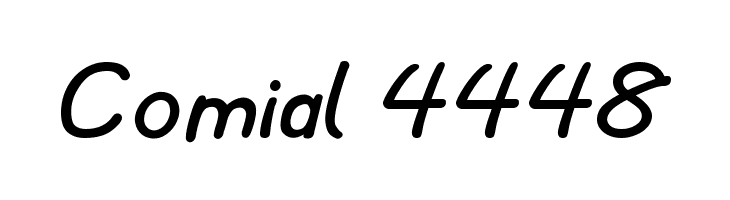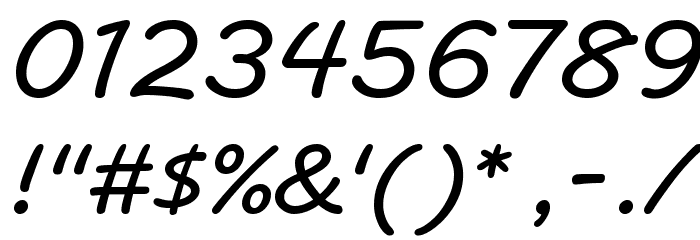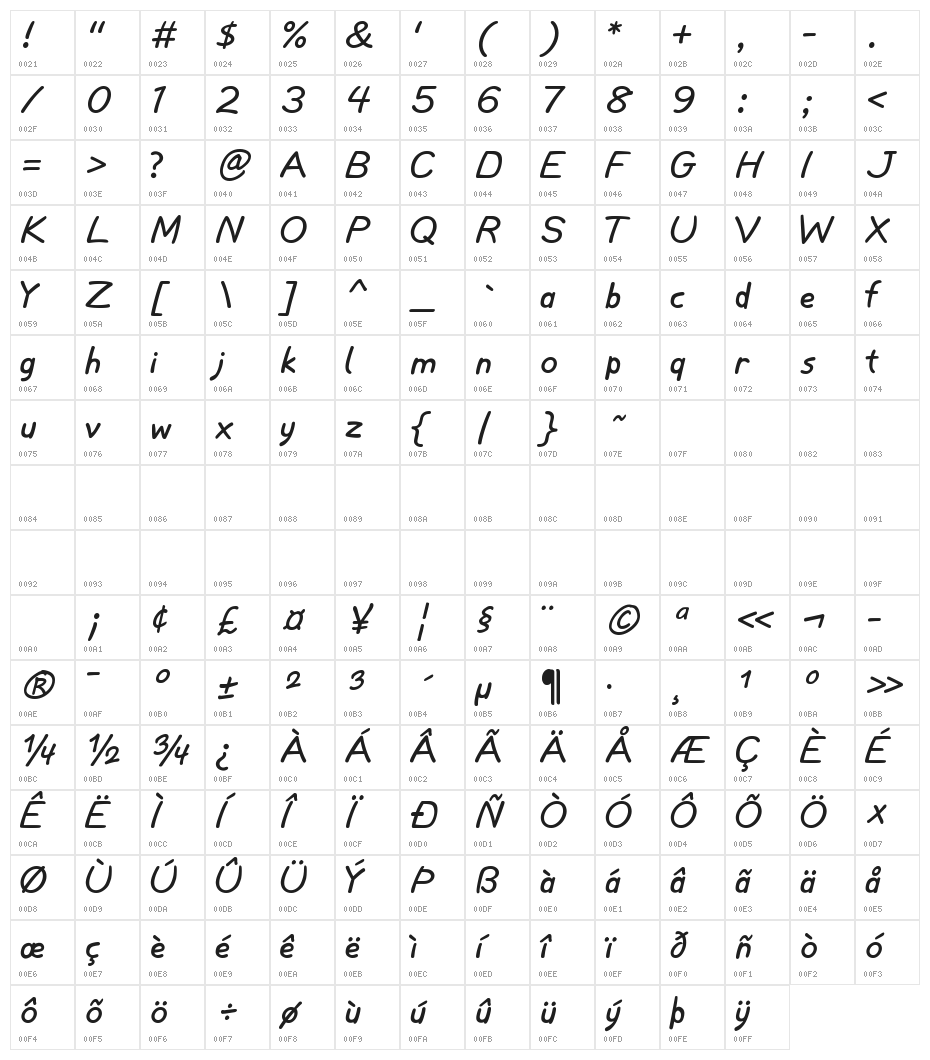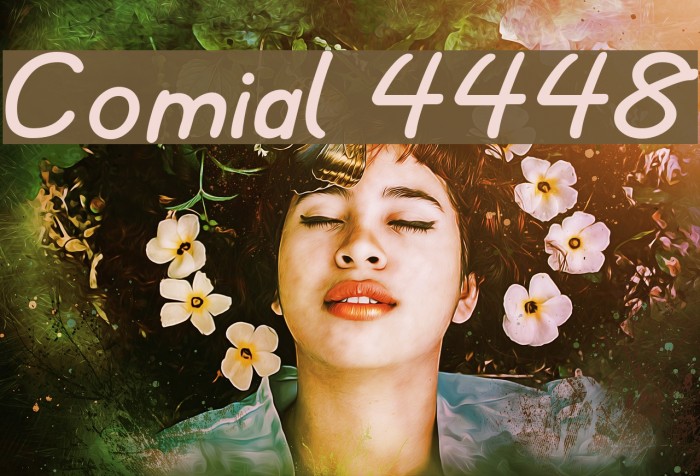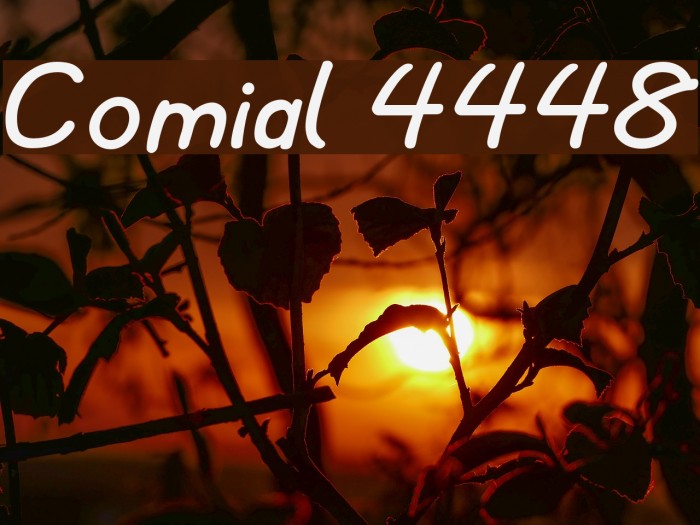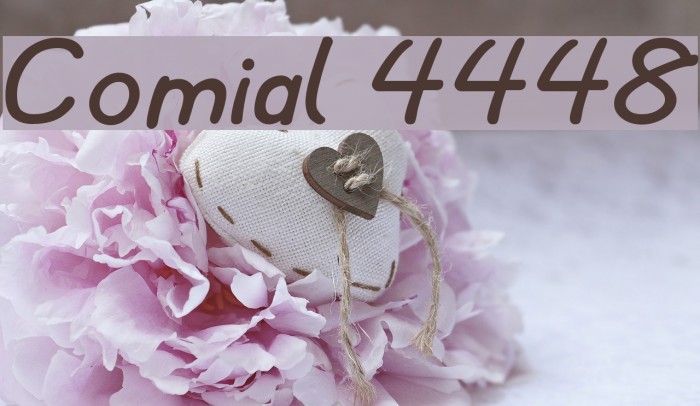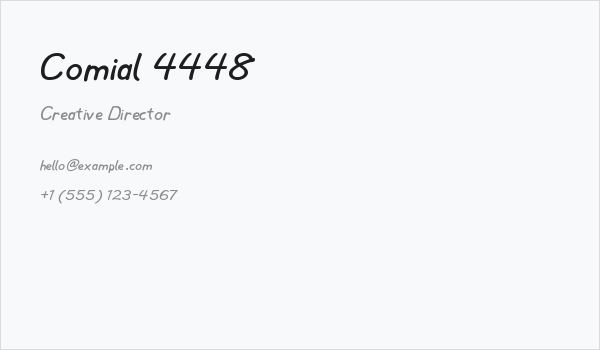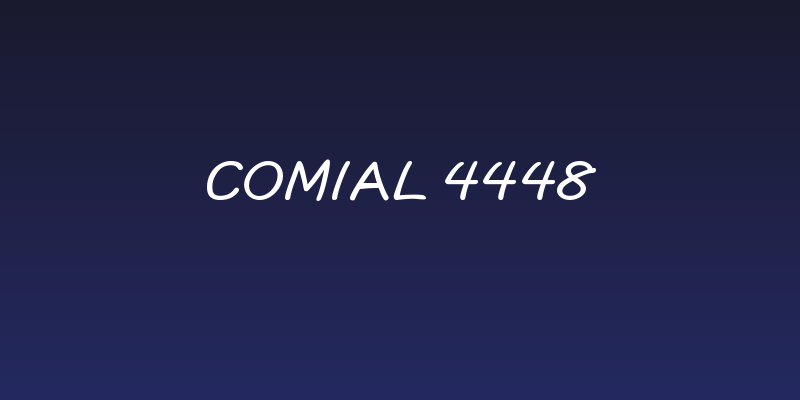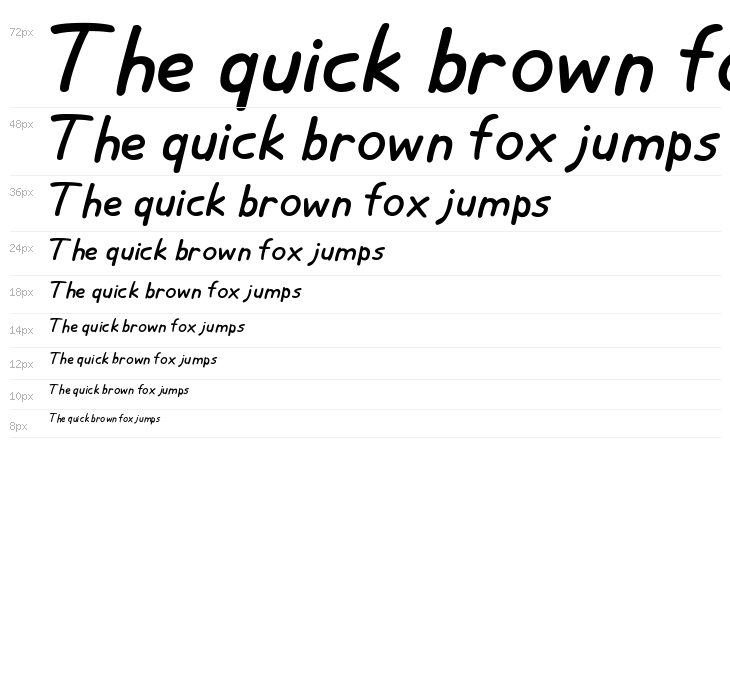
Comial 4448 Font
Comial 4448 Description
This font features a playful and casual handwritten style, characterized by its smooth and flowing curves. The letters are slightly slanted, giving it a dynamic and informal appearance. The uppercase and lowercase letters maintain a consistent style, with rounded edges and a friendly demeanor. The numerals and special characters follow the same aesthetic, ensuring uniformity across all glyphs. This font is ideal for projects that require a personal touch, such as invitations, greeting cards, or any design that aims to convey warmth and approachability.
| Use Case | Headlines, Informal text, Personal projects |
| Proposed Projects | Ideal for invitations, greeting cards, personal branding, and informal communication. |